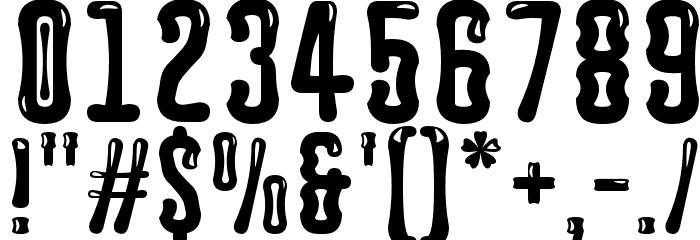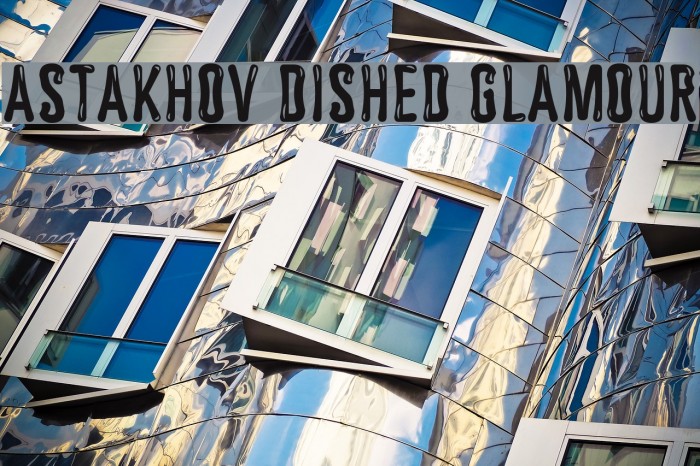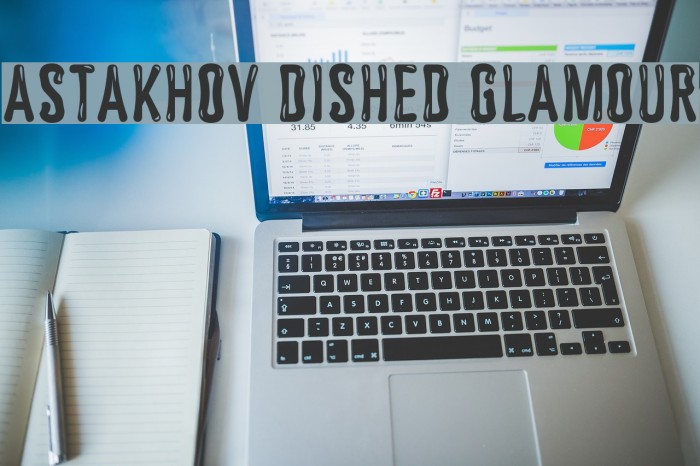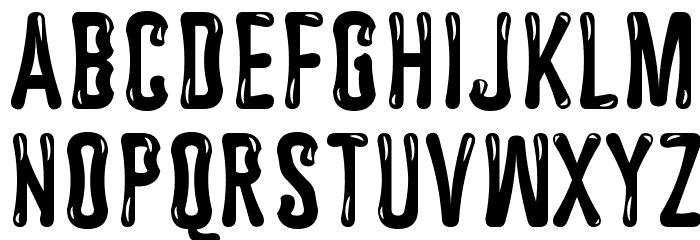
Astakhov Dished Glamour Font
This font features a bold and playful design with a unique, wavy texture that gives it a liquid-like appearance. The characters are thick and robust, with an irregular pattern that adds a sense of movement and dynamism. The uppercase and lowercase letters maintain a consistent style, with rounded edges and a slightly condensed form. Numbers and special characters are equally bold, ensuring a cohesive look across all text elements. The font's distinctive style makes it ideal for eye-catching designs and creative projects.
A bold, wavy font with a liquid-like texture, perfect for dynamic designs.
• Proposed Projects: Ideal for posters, album covers, branding, and any project requiring a bold, artistic touch.
• Category: Decorative/Display
• Overall Style: Modern, Artistic
• Use Case: Headlines, Logos, Posters